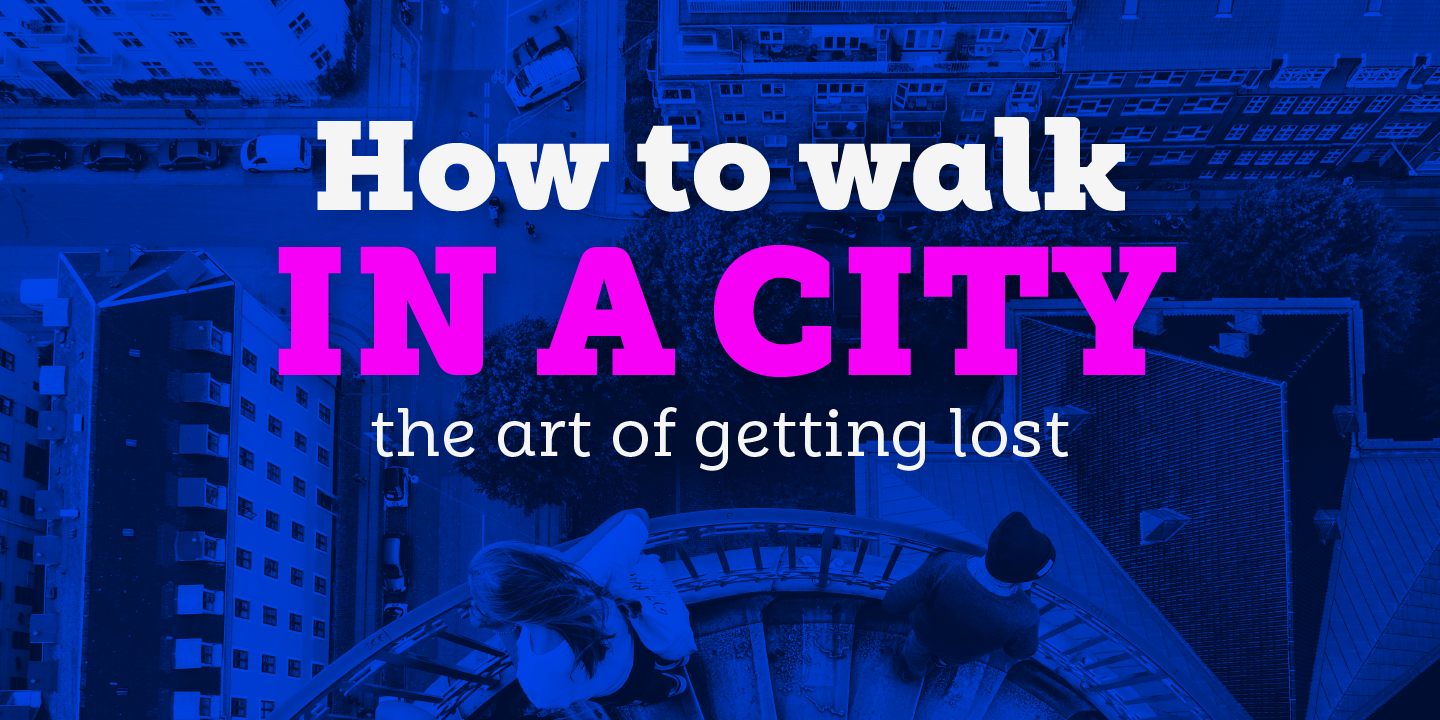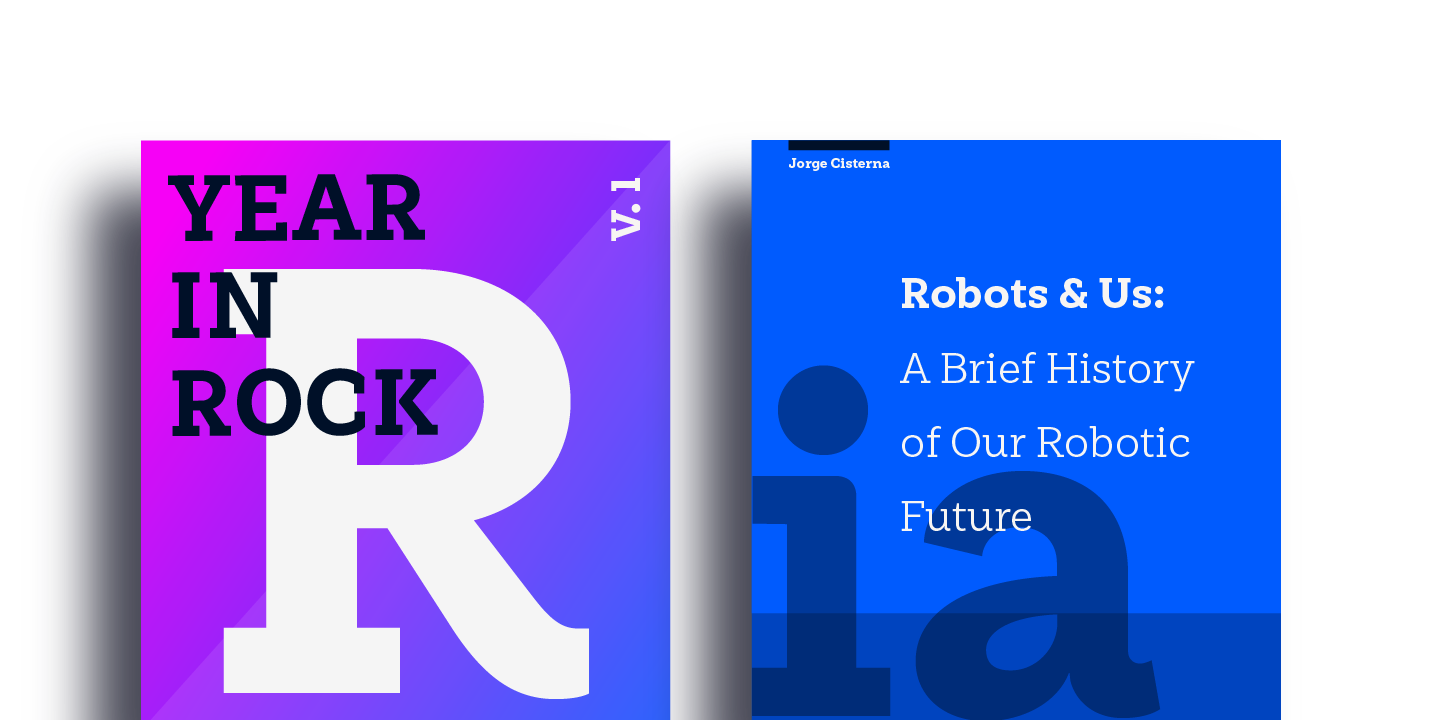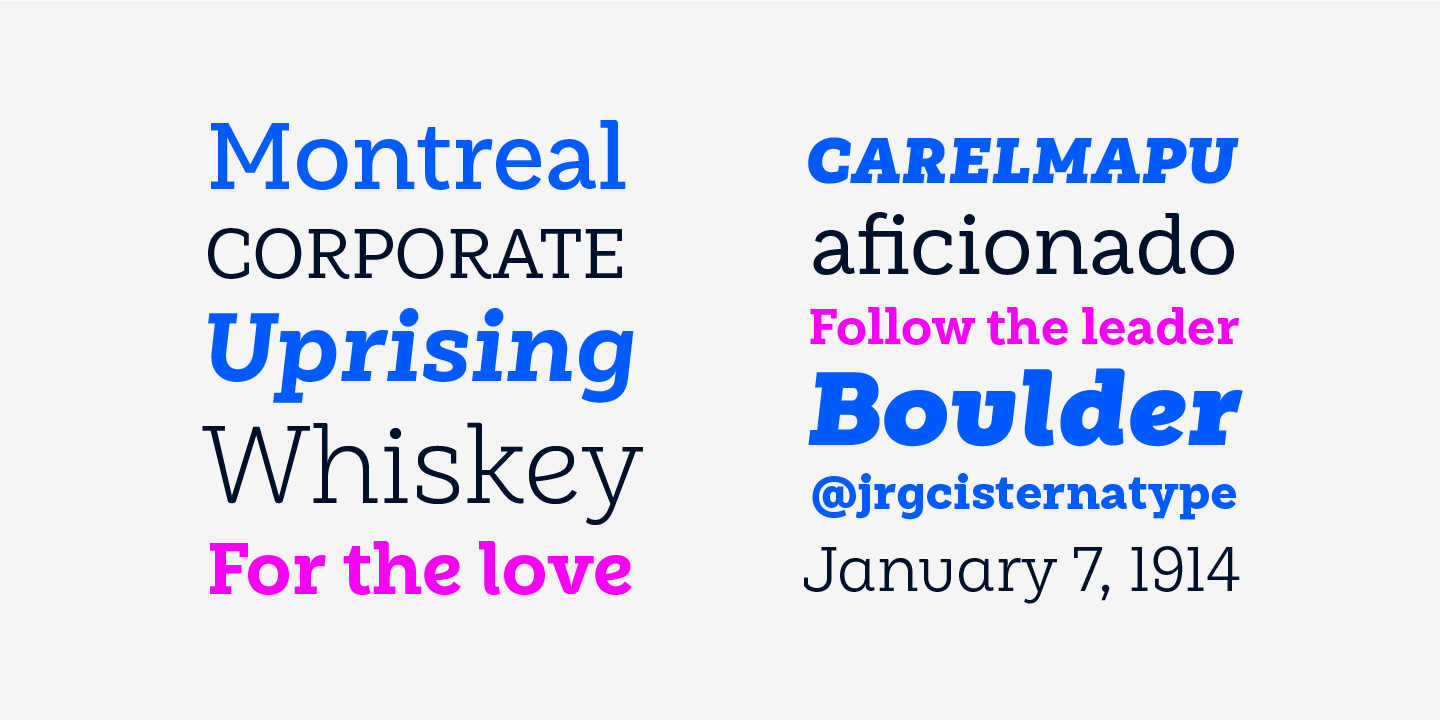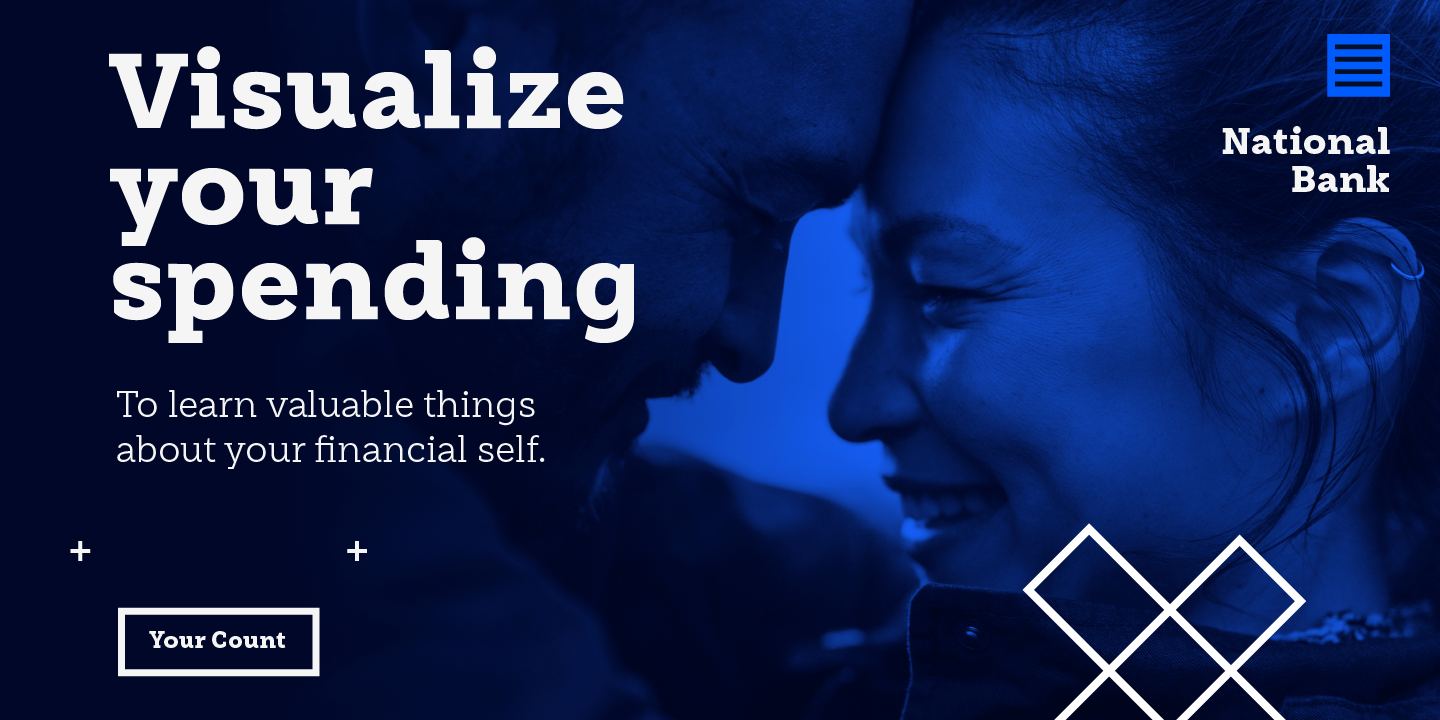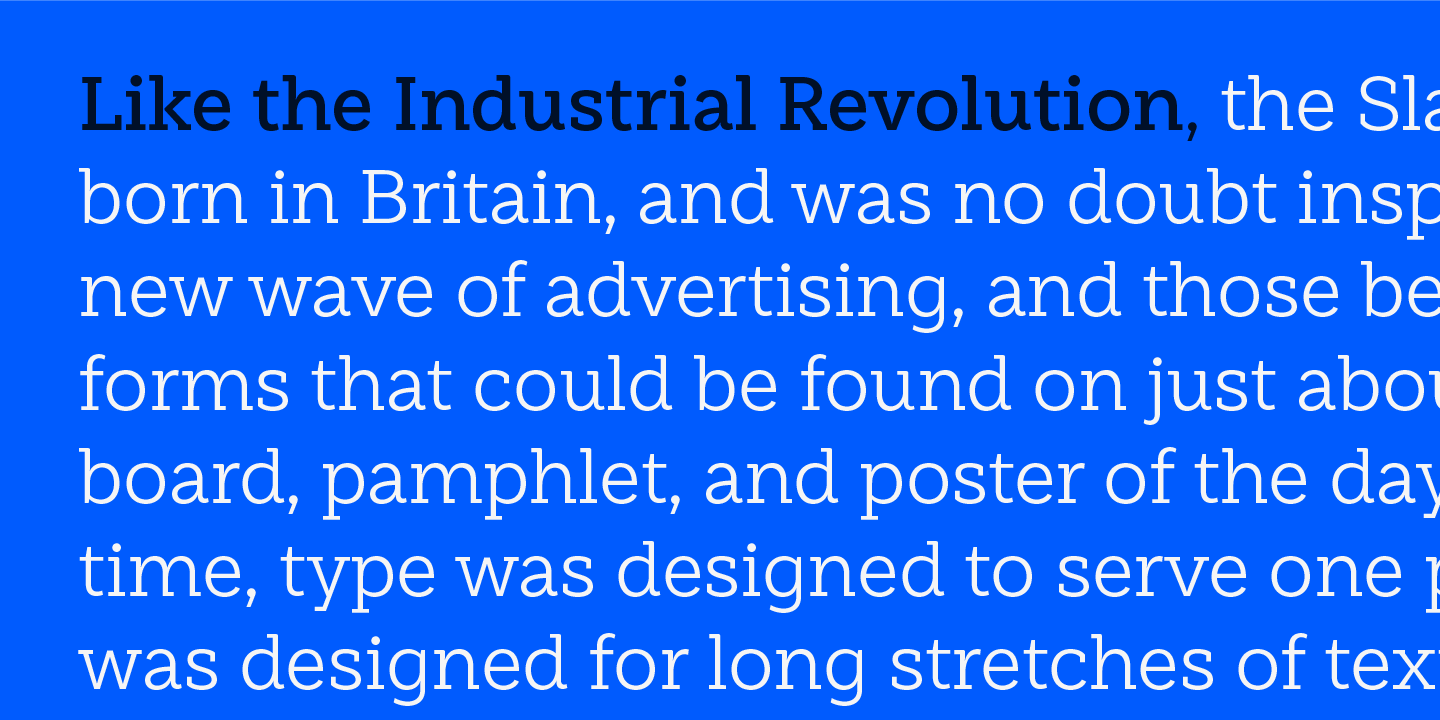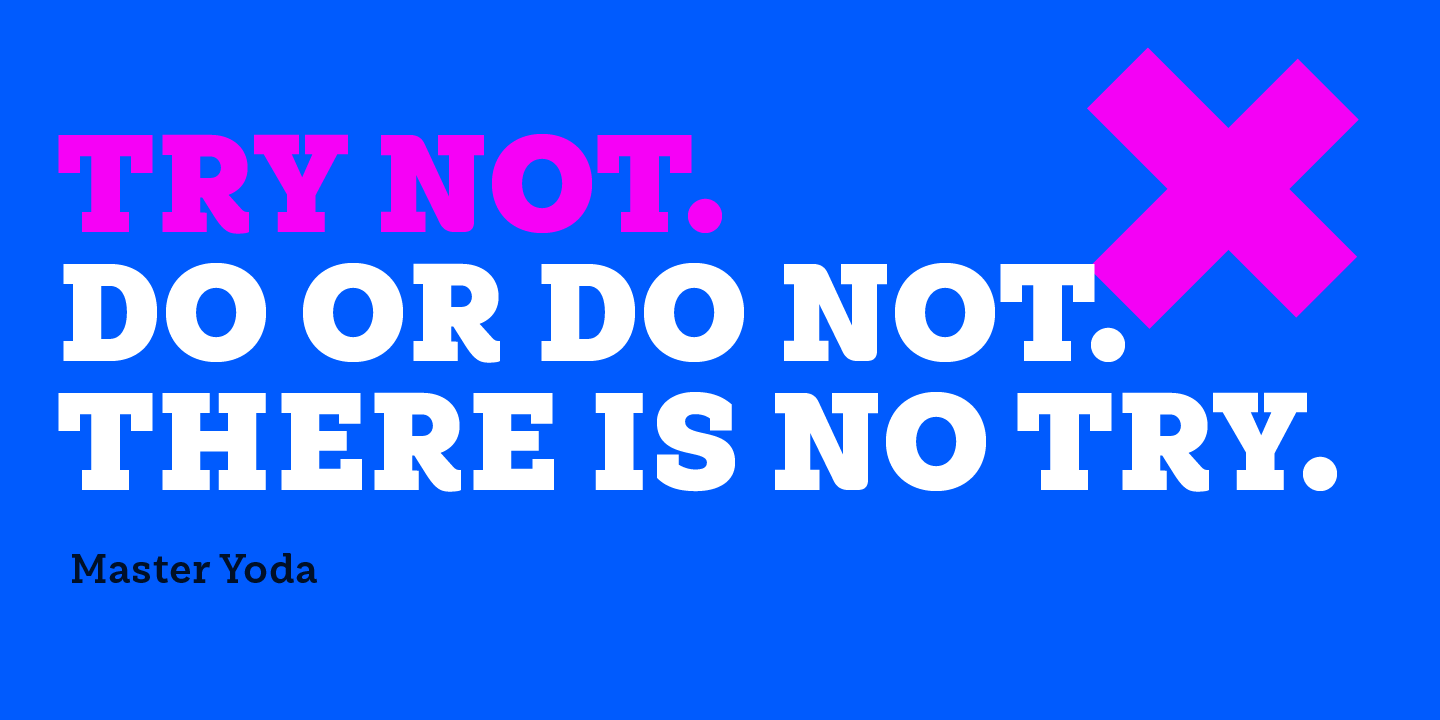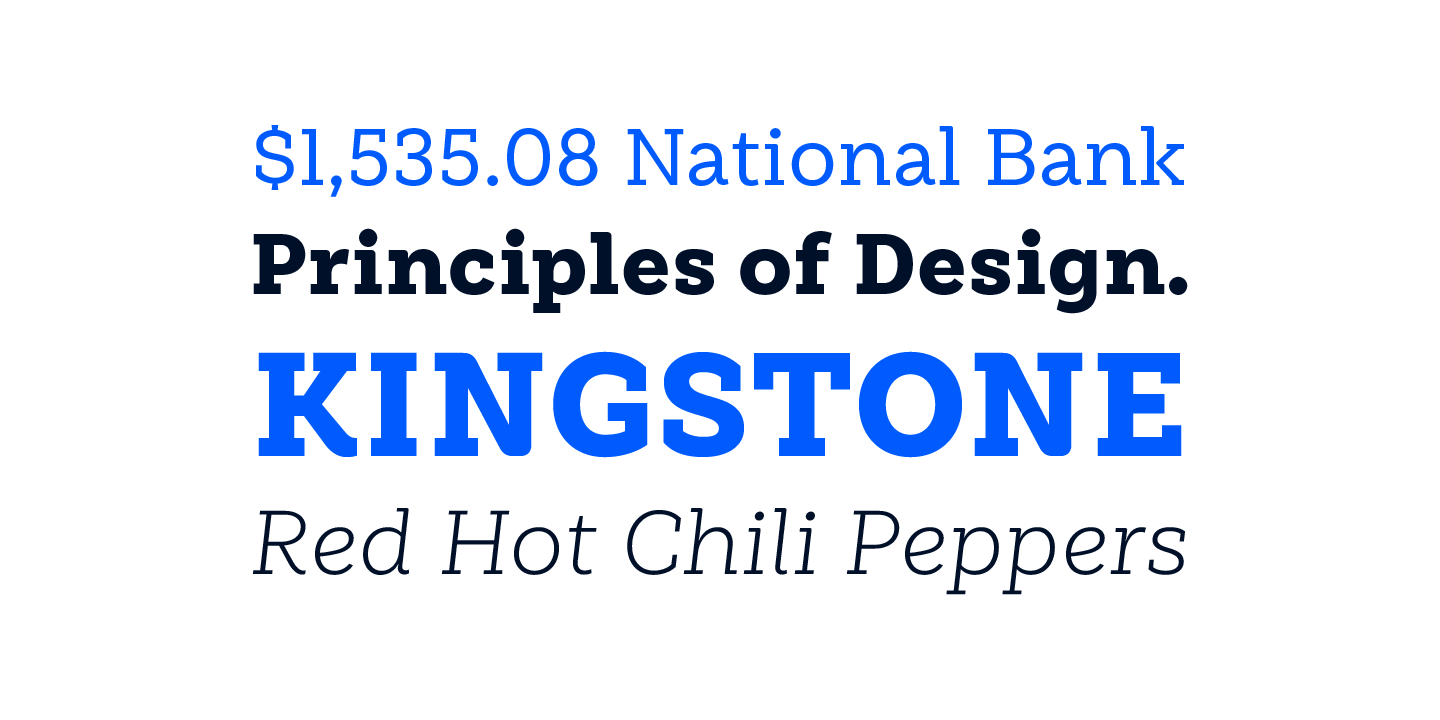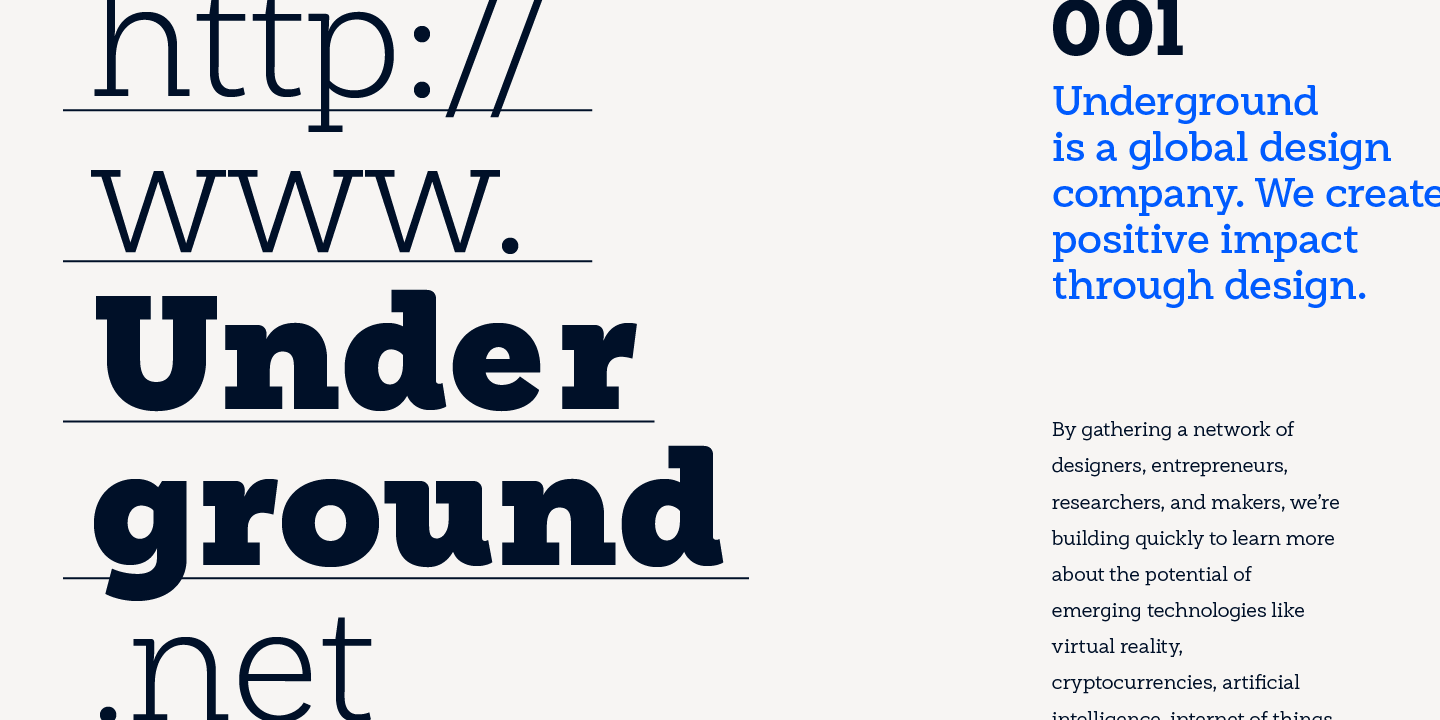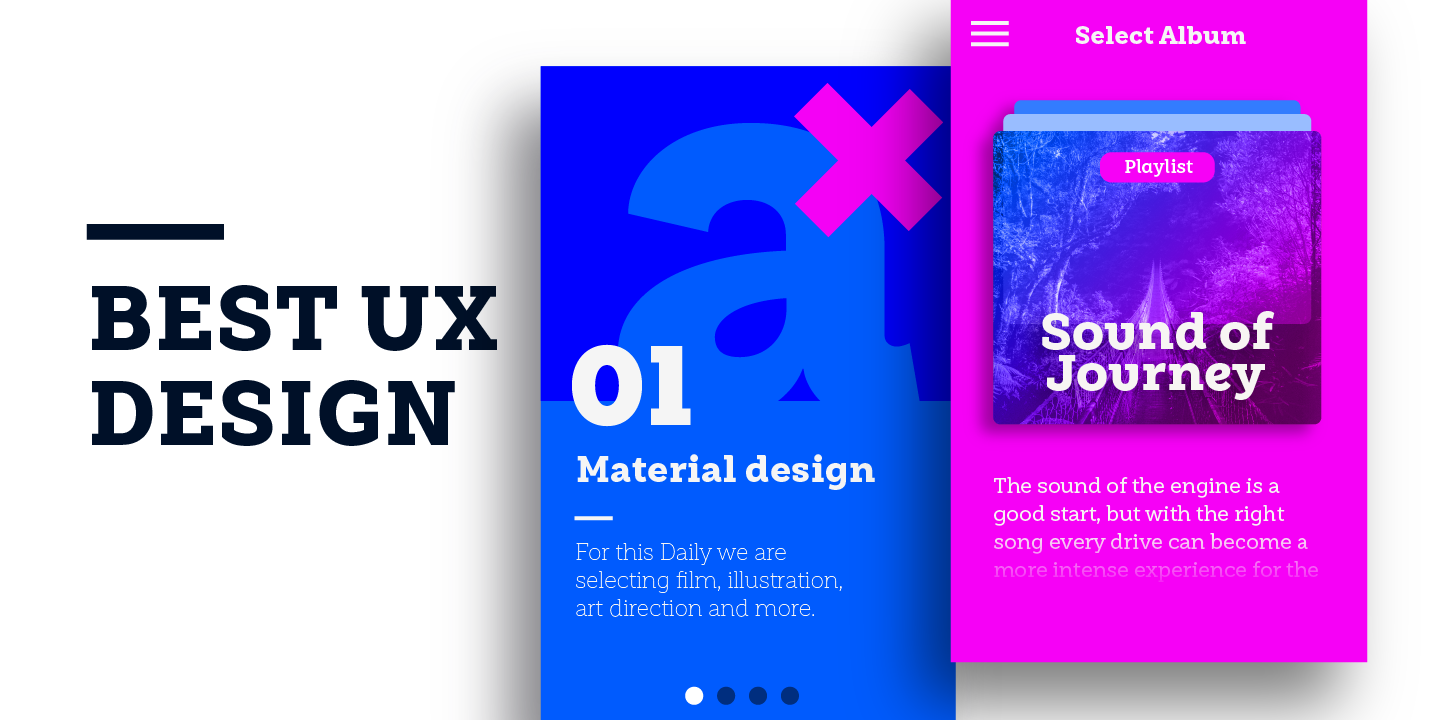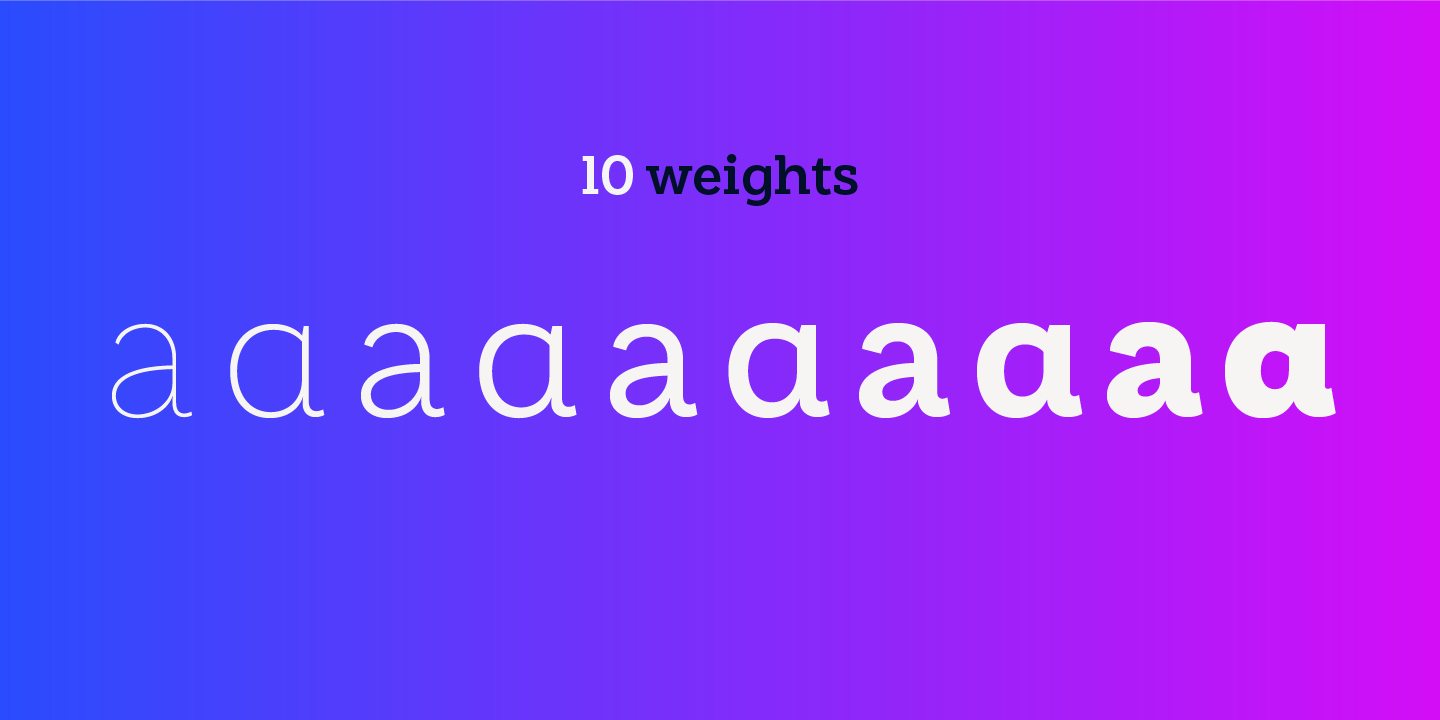
This font was created under the premise that it can be used as a sans: a fresh design without that retro feel typical of slab fonts. As a result, we developed an Egyptienne font—more simple compared to others of its kind, a feature that gives it its unique personality.
Weekly was based on fonts with humanist proportions, such as ‘Oficina’ and ‘Caecilia’, both created in the ’90s. Typefaces like these give designers the possibility to use them in books or magazines, in contrast to geometric slab fonts or early 20th century fat faces, which are mainly used for advertising or display text. Another feature that reminds us of humanist sans fonts is the small difference between x-height and cap-height. Some characters in Weekly like ‘a’ or ‘g’ lack serifs and some like ‘c’ or ’s’ have short serifs, giving it a semi-serif air.
Weekly comes in both light and heavy weights. The heavier ones bear resemblance to Egyptienne slab serif typefaces with strong personality. These variants are ideal for use in posters and big, powerful headings.